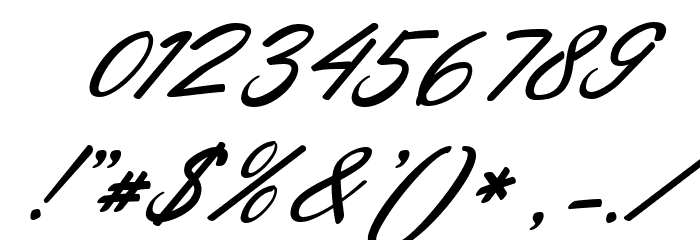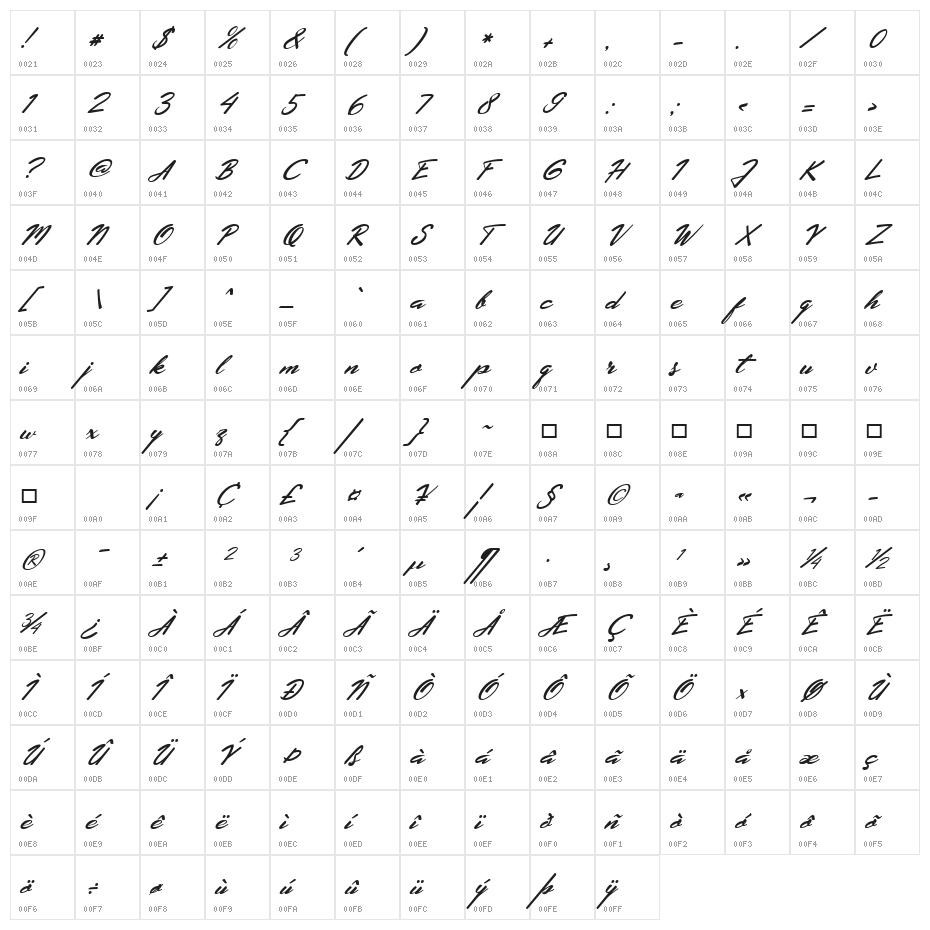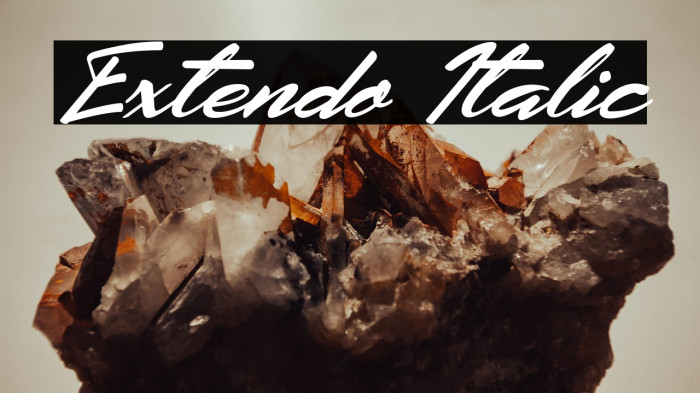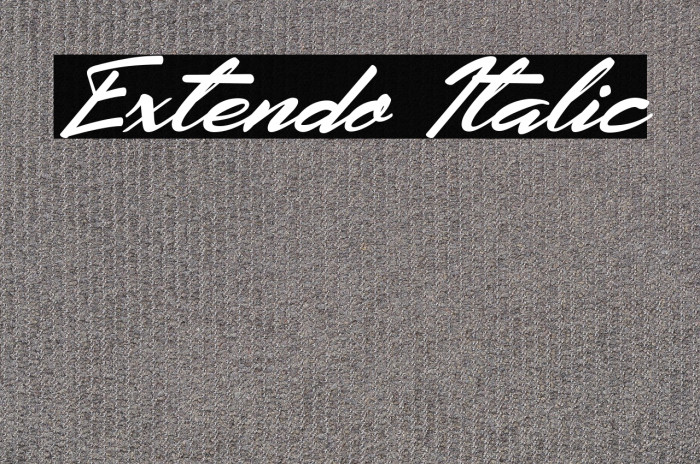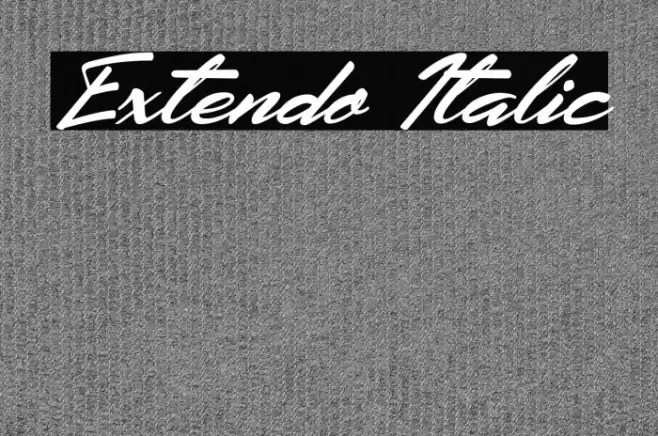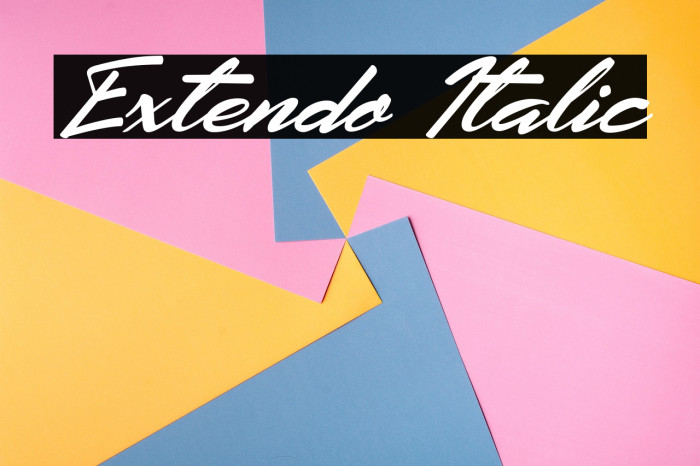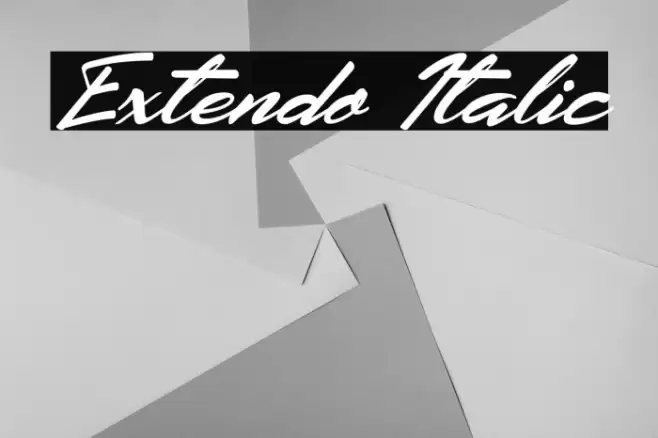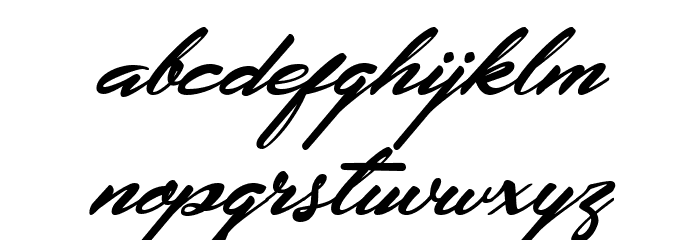
Extendo Italic Font
Extendo Italic Description
This font features an elegant, flowing script style with a pronounced italic slant, giving it a dynamic and sophisticated appearance. The characters are connected, mimicking the fluidity of cursive handwriting, which adds a personal and artistic touch. The strokes are smooth and consistent, with moderate contrast in thickness, enhancing readability while maintaining an expressive flair. The uppercase letters are slightly larger and more ornate, while the lowercase letters maintain a consistent baseline, contributing to a harmonious overall look. The numerals and special characters are designed to match the script style, ensuring a cohesive appearance across all text elements.
| Proposed Projects | Ideal for wedding invitations, elegant branding, personal stationery, and artistic projects requiring a touch of sophistication. |